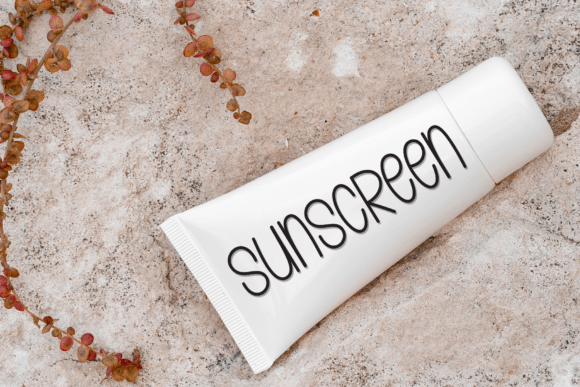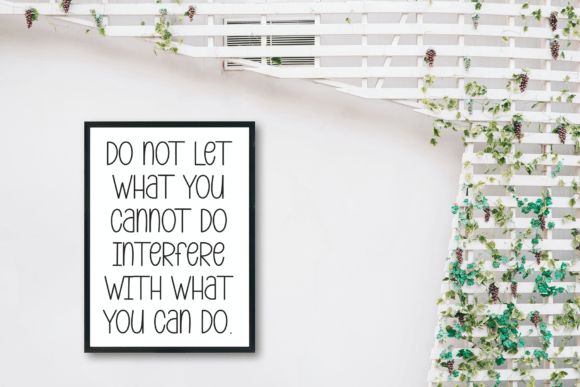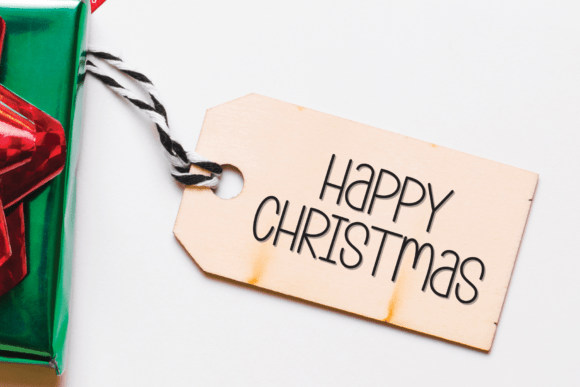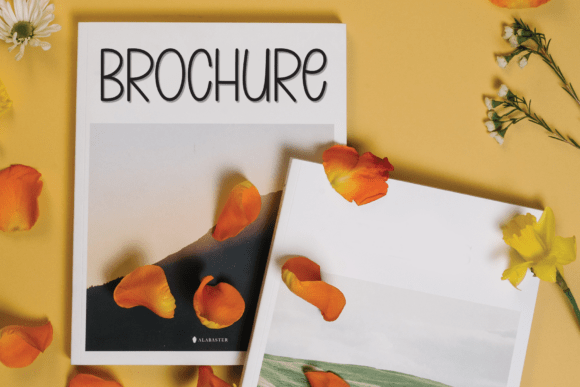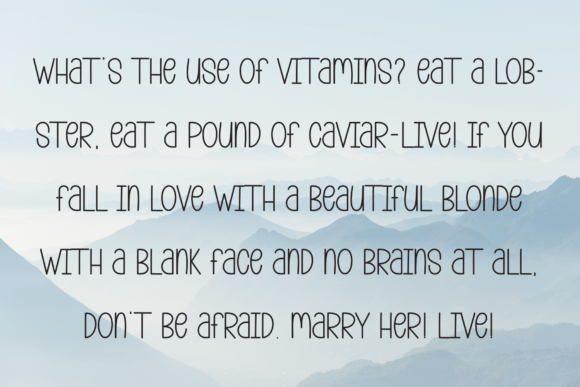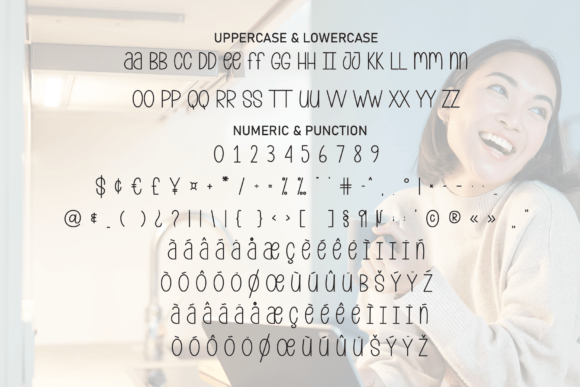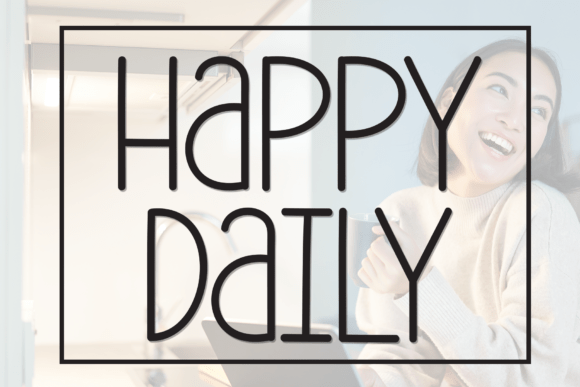
Introducing Happy Daily Font: The Perfect Choice for Joyful Designs
Are you tired of using the same old fonts for your designs? Do you want to add a touch of warmth and personality to your creations? Look no further than Happy Daily Font, our engaging handwritten display font that’s perfect for crafting wedding invitations, greeting cards, and more!
A Delicate and Warm Feel
Happy Daily Font is crafted with a delicate and warm feel that makes it stand out from other fonts. Its charming aura is sure to capture the attention of your audience and leave a lasting impression. Whether you’re designing a wedding invitation, a greeting card, or any other type of project, this font is sure to add a sprinkle of joy and personality to your words.
The Perfect Choice for Joyful Designs
Happy Daily Font radiates a sweet and friendly vibe that’s perfect for making an endearing impression. Its playful charisma makes it ideal for designers and crafters who want to create joyful and uplifting designs. Whether you’re creating a design for a special occasion or just want to add some personality to your everyday projects, this font is the perfect choice.
What Makes Happy Daily Font Special?
So, what makes Happy Daily Font so special? Here are just a few features that set it apart:
• Handwritten with love: Happy Daily Font is a handwritten font that’s crafted with love and care. Its delicate and warm feel makes it perfect for creating designs that are personal and meaningful.
• Charming aura: This font has a charming aura that’s sure to capture the attention of your audience. Its playful charisma makes it perfect for creating designs that are joyful and uplifting.
• Versatile: Happy Daily Font is a versatile font that can be used for a wide range of projects, from wedding invitations and greeting cards to social media graphics and more.
• Easy to read: Despite its playful and handwritten feel, Happy Daily Font is easy to read and understand. This makes it perfect for creating designs that are both beautiful and functional.
• Pair it with other fonts: Happy Daily Font pairs well with other fonts, especially those with a more modern or elegant feel. Try pairing it with a clean sans-serif font for a beautiful contrast.
• Use it for headings and titles: Happy Daily Font is perfect for headings and titles, where its playful charisma can really shine. Try using it to create eye-catching headings and titles for your designs.
• Add some personality: Happy Daily Font is all about adding personality to your designs. Don’t be afraid to experiment and add your own personal touch to your creations.
In conclusion, Happy Daily Font is a unique and engaging handwritten display font that’s perfect for designers and crafters who want to add a touch of warmth and personality to their creations. Its charming aura and playful charisma make it ideal for crafting wedding invitations, greeting cards, and more. With its delicate and warm feel, Happy Daily Font is sure to capture the attention of your audience and leave a lasting impression. So why not give it a try and see the joy it can bring to your designs?